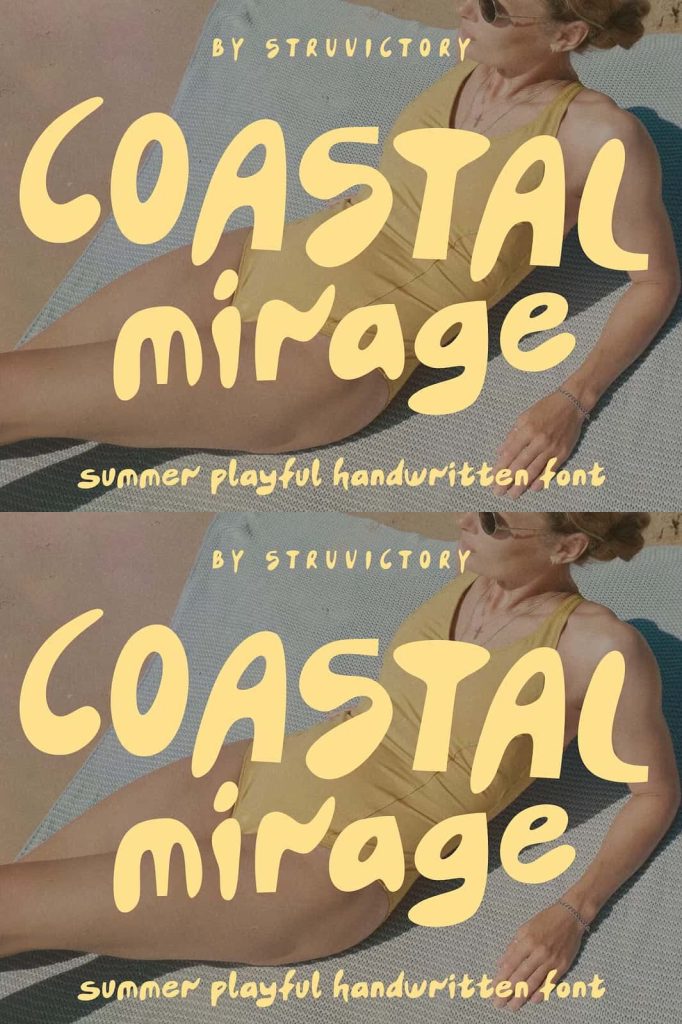
Coastal Mirage Playful Summer Sans
Coastal Mirage Handwritten Sans Serif Font: Relaxed Style with Modern Warmth
Coastal Mirage is a handwritten sans serif font that captures a carefree and relaxed aesthetic inspired by coastal living. With its soft, sun-faded feel and naturally flowing shapes, this typeface brings a sense of calm and warmth into every design. It reflects the easy rhythm of beach days, gentle waves, and slow summer afternoons, allowing designers to create visuals that feel both inviting and effortlessly stylish.
This font does not rely on rigid structure or sharp precision. Instead, it embraces a loose and rounded form that feels organic and approachable. Coastal Mirage transforms ordinary typography into a visual experience that communicates comfort, ease, and modern charm. Designers can use it to build compositions that feel light, fresh, and emotionally engaging.
Soft, Sun-Faded Aesthetic Inspired by Coastal Life
Coastal Mirage draws inspiration from the natural beauty of seaside environments. Its slightly faded appearance mimics the effect of sunlight on surfaces over time, giving the font a relaxed and worn-in character. This subtle texture creates a sense of authenticity, making designs feel more lived-in and genuine.
The font’s rounded edges and smooth curves enhance its softness, allowing each letter to flow naturally into the next. This design approach creates a cohesive and harmonious look that works well across various creative contexts. Designers can use this aesthetic to evoke feelings of nostalgia, relaxation, and warmth.
Loose and Rounded Letterforms for Natural Flow
One of the defining features of Coastal Mirage is its loose and rounded structure. The letterforms do not follow strict alignment, which adds a sense of movement and spontaneity. This relaxed composition mirrors the unpredictability of handwritten text while maintaining a clean and readable appearance.
The balance between structure and freedom allows the font to remain versatile. It provides enough consistency for professional use while preserving the casual charm that makes it unique. Designers can rely on this balance to create layouts that feel both polished and approachable.
Effortless Style with a Modern Twist
Coastal Mirage combines its laid-back personality with a modern design sensibility. While it reflects a relaxed lifestyle, it also maintains a contemporary edge that fits seamlessly into current design trends. This combination makes the font suitable for projects that require both style and relevance.
The modern twist ensures that Coastal Mirage does not feel outdated or overly decorative. Instead, it delivers a clean and fresh look that enhances visual communication. Designers can use it to create work that feels current while still carrying a distinctive personality.
Perfect for Branding, Packaging, and Merchandise
Coastal Mirage adapts effortlessly to branding projects that aim to communicate warmth and authenticity. Businesses in lifestyle, travel, and creative industries can use this font to establish a friendly and approachable identity. Its relaxed style helps brands connect with audiences on a more personal level.
In packaging design, Coastal Mirage adds a soft and inviting touch that enhances product appeal. It works particularly well for items that emphasize natural, handmade, or lifestyle-oriented qualities. The font helps products stand out by creating a visual impression that feels genuine and thoughtfully designed.
For merchandise, Coastal Mirage delivers a stylish and casual look that resonates with modern consumers. Whether used on apparel, accessories, or promotional items, it creates designs that feel both trendy and comfortable. Its versatility ensures that it performs well across different formats and materials.
Create Warm and Relaxed Visual Experiences
Coastal Mirage empowers designers to create work that feels warm, relaxed, and visually engaging. Its combination of soft textures, rounded forms, and modern style makes it a valuable addition to any creative toolkit. The font encourages experimentation while maintaining a cohesive and polished result.
By choosing Coastal Mirage, you introduce a typeface that transforms simple text into a relaxed visual statement. It enhances storytelling, strengthens brand identity, and helps designs connect with audiences in a natural and meaningful way. This font stands as a perfect choice for anyone seeking to bring a sense of ease and charm into their creative projects.